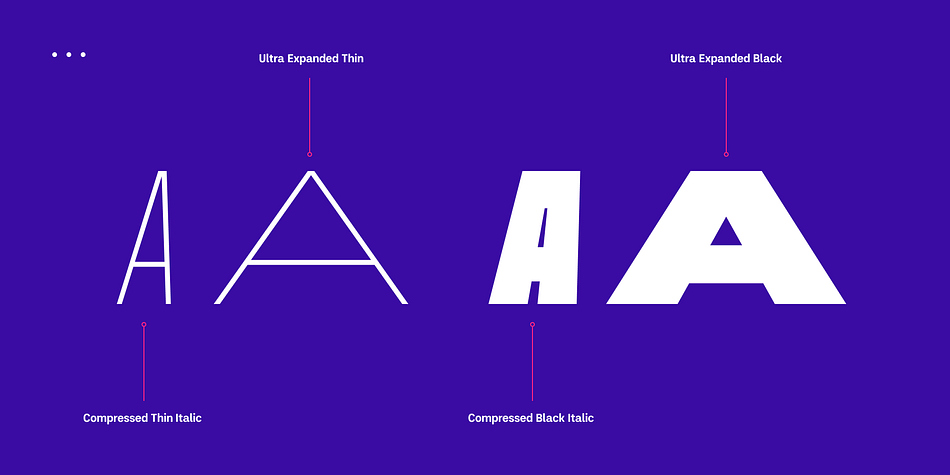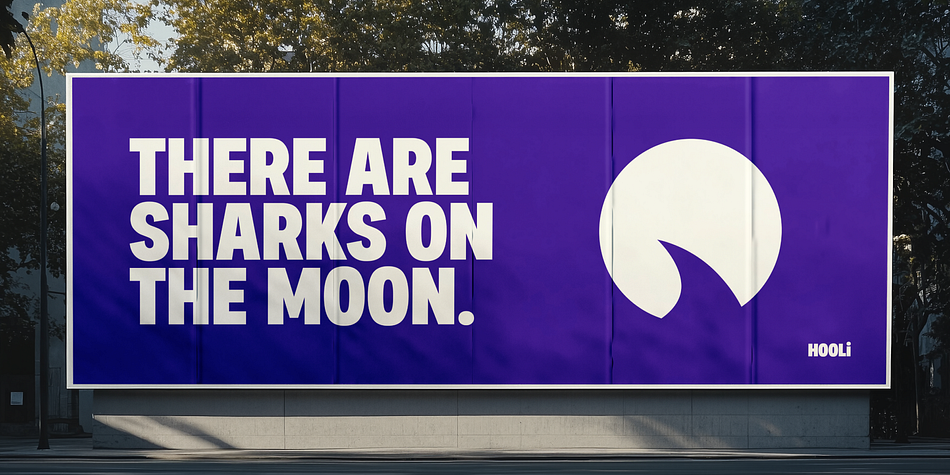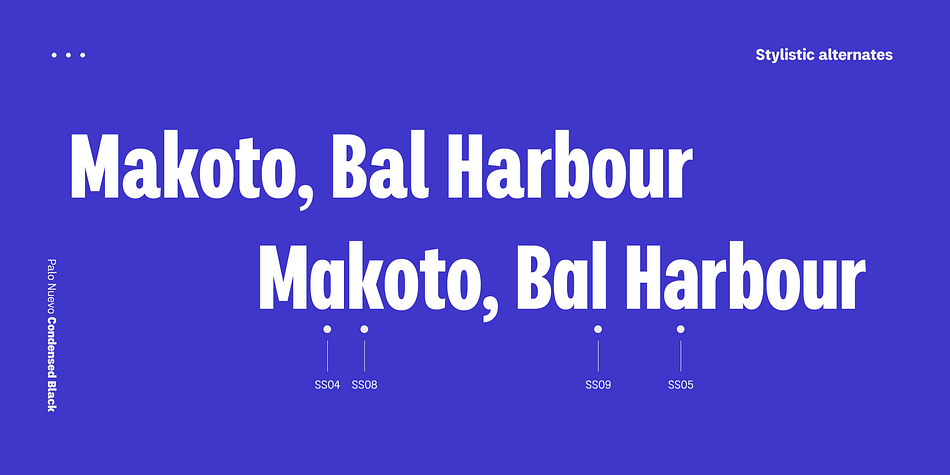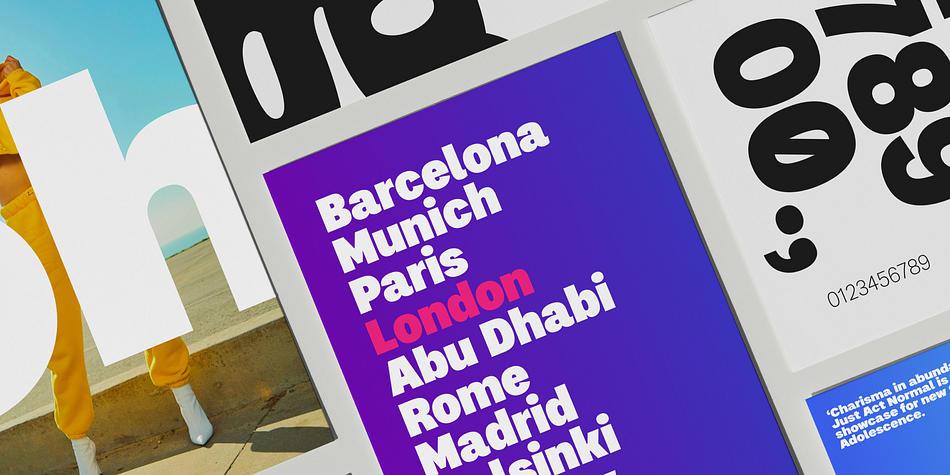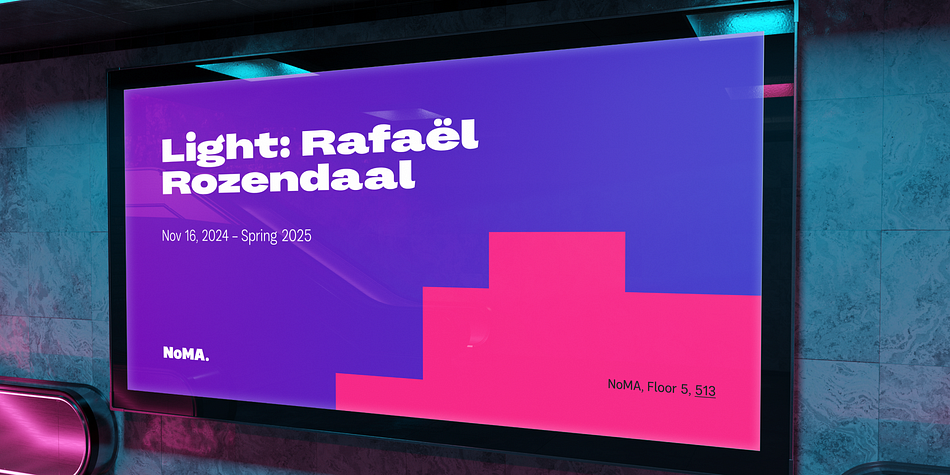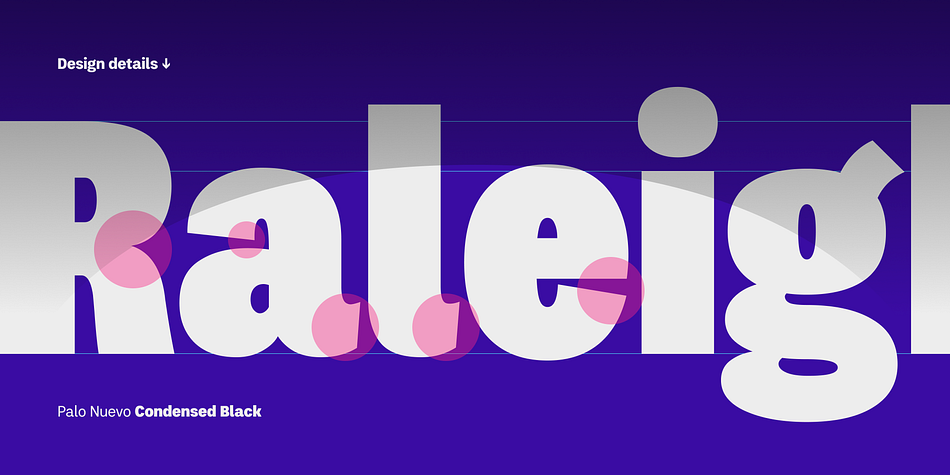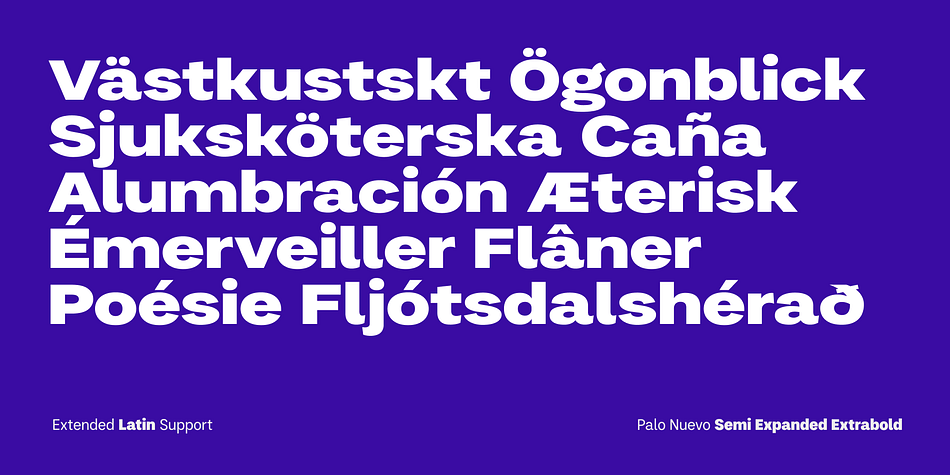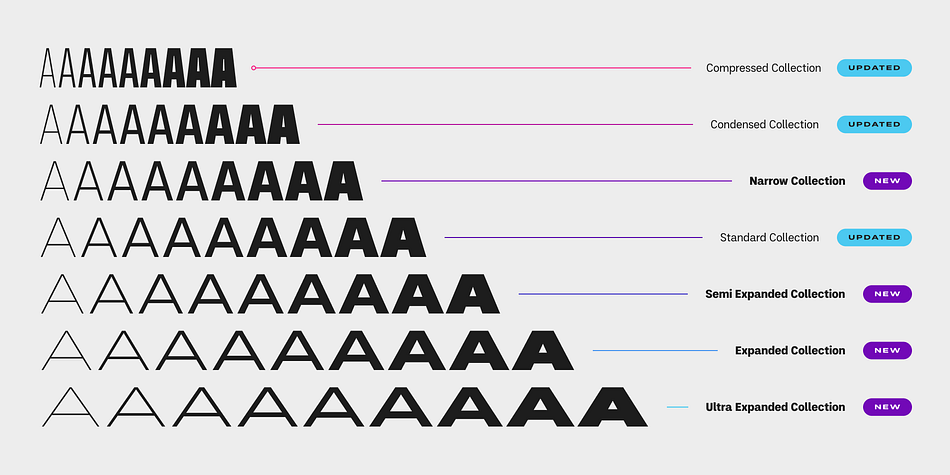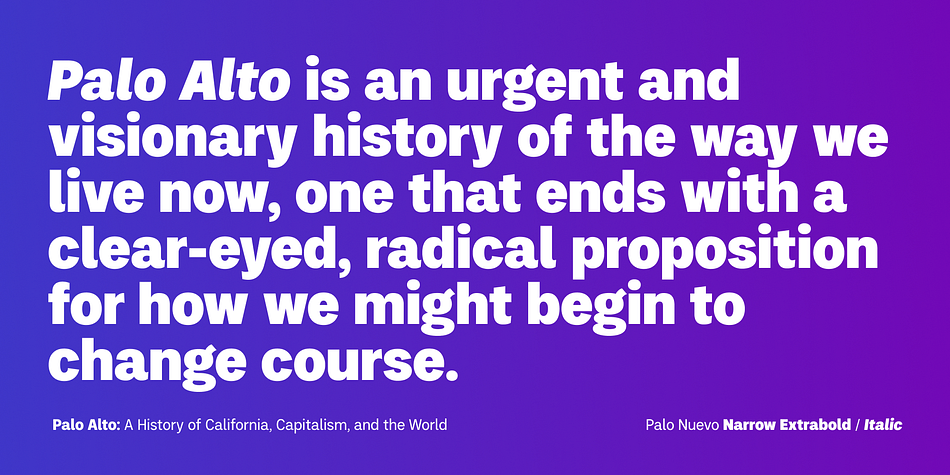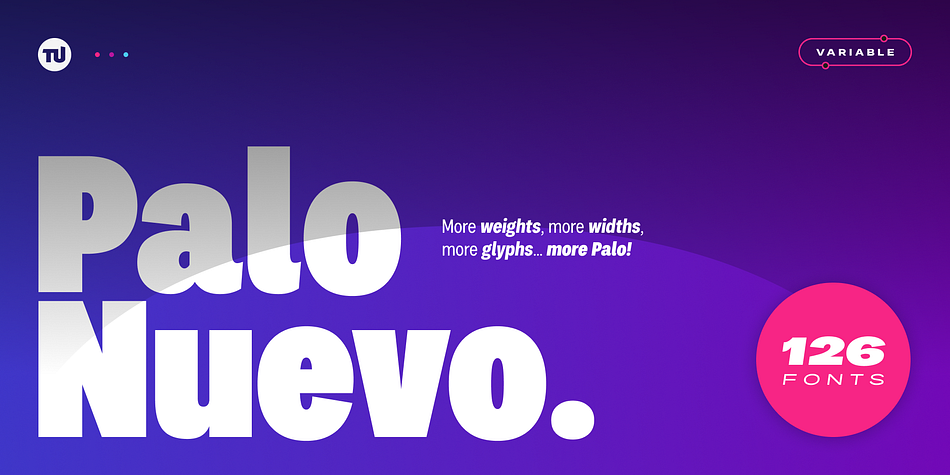
Palo Nuevo
Designed by Dan Jones, Palo Nuevo is a sans serif font family. This typeface has one hundred and twenty-seven styles and was published by TypeUnion.
Palo Nuevo is an expansive redesign of our 2020 release Palo, featuring more weights, more widths, more characters, along with a 3-axis Variable font for ultimate customisation. From Compressed to Ultra Expanded, Thin to Black, Palo Nuevo is a workhorse of a type system that gives you the tools to create, from large impactful messaging to the small details, we’ve got you covered.
Use Palo Nuevo for your brand to craft eye-catching visuals built for today’s design-conscious consumer.
Palo Nuevo comes with many stylistic alternates, along with case-sensitive punctuation, plus language support for Extended Latin.